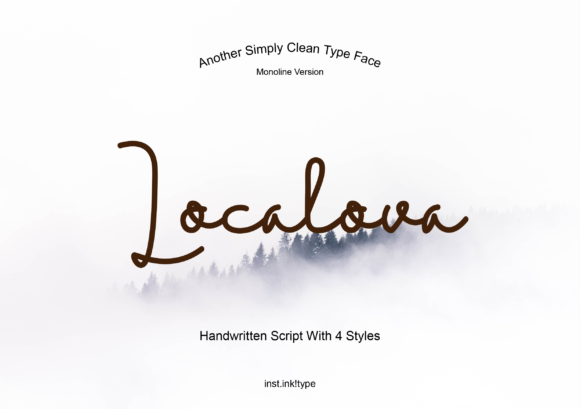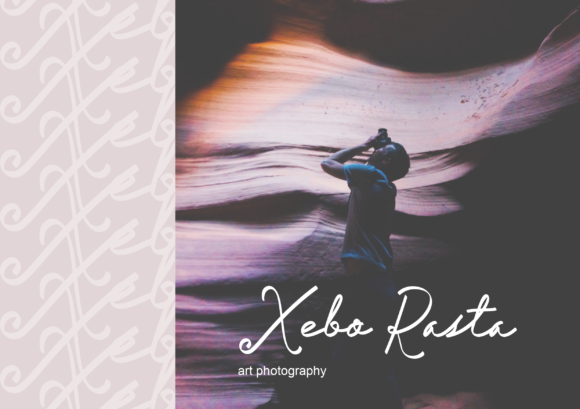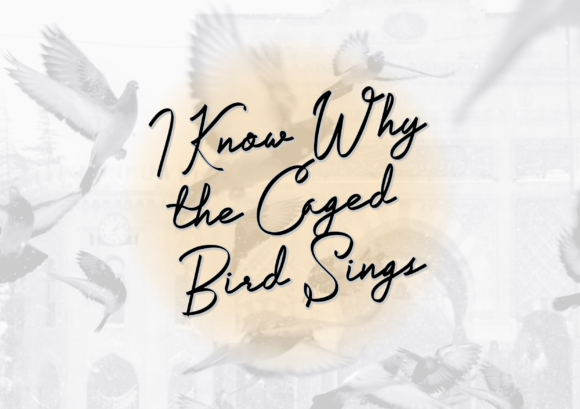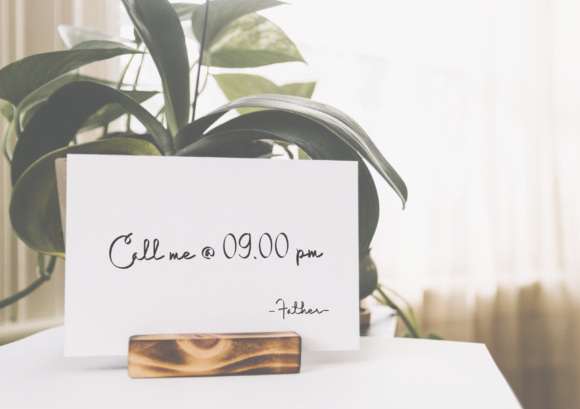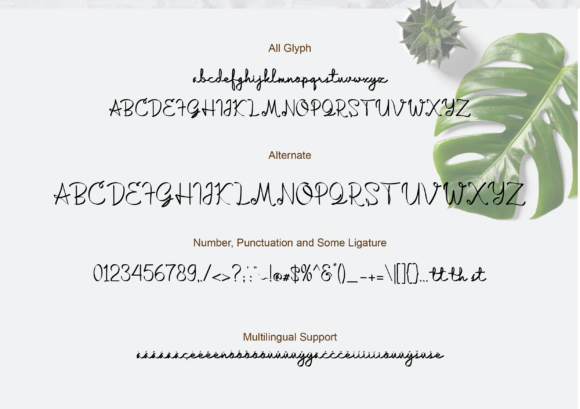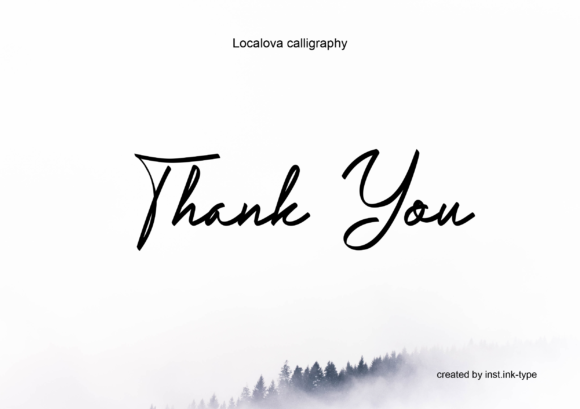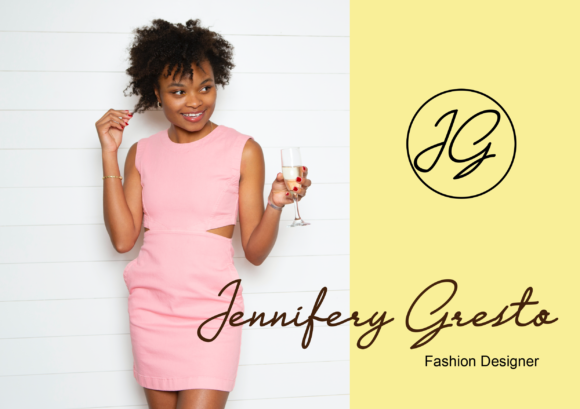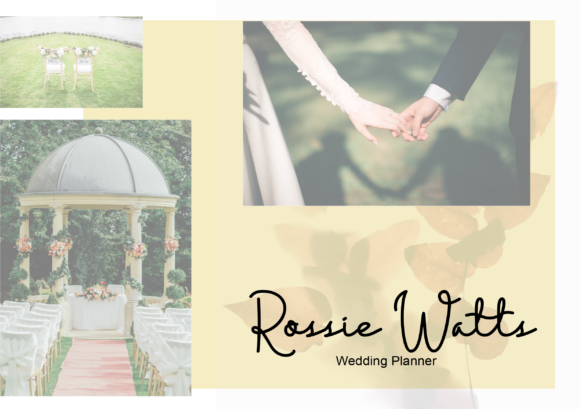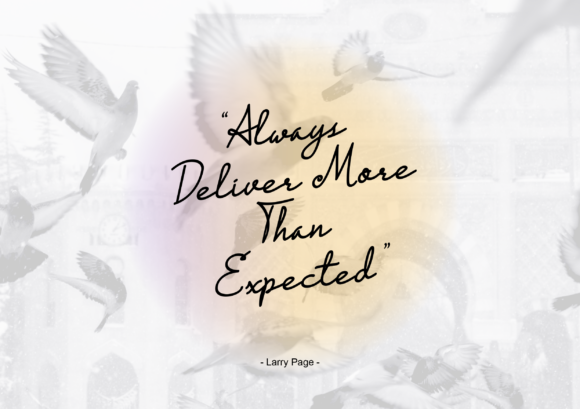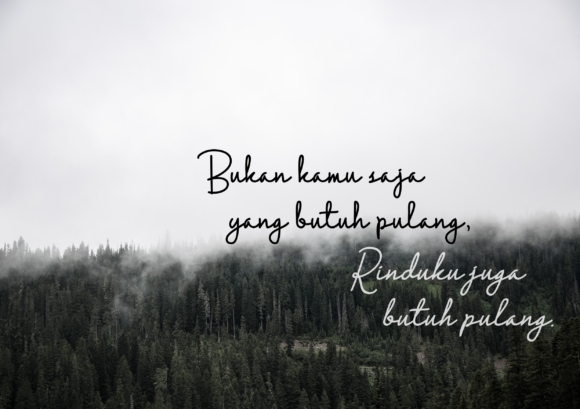
Localova Font
About Localova Font
Localova feels equally charming and elegant. This stunning handwritten font is a stylish homage to classic calligraphy. It features a varying baseline, smooth lines, gorgeous glyphs and stunning alternates.